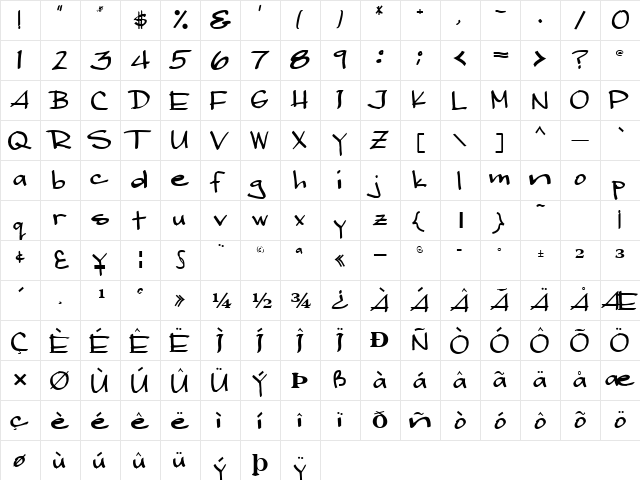
Christina Regular
Design Context for Christina Typeface
Christina is a composed and adaptable typeface that performs quietly and consistently across a wide range of design contexts.